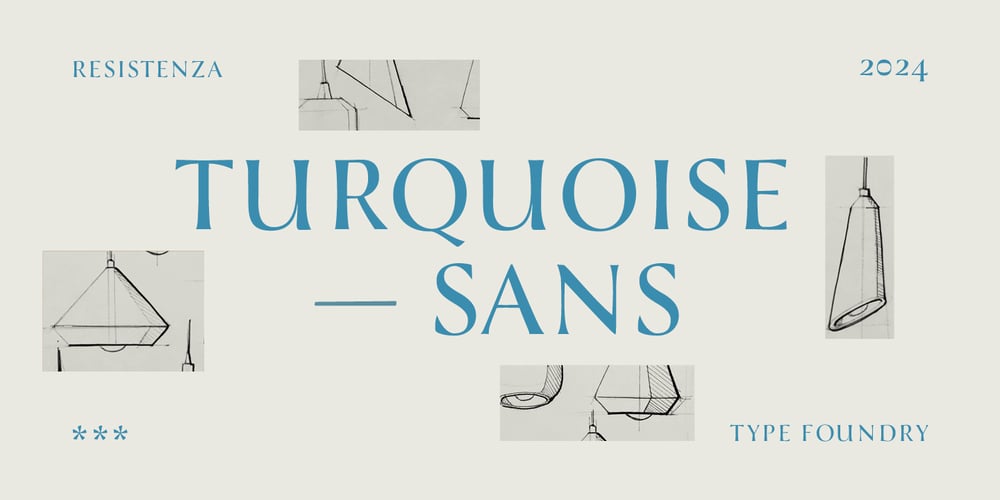
Turquoise Sans
Turquoise Sans font
Turquoise Sans Font Family was designed by Giuseppe Salerno, Paco González and published by Resistenza. Turquoise Sans contains 2 styles and family package options. Though classified as a sans-serif, Turquoise Sans has a subtle swelling at the terminals steams, inspired by classical Roman capitals and our brushy Turquoise Best Seller font.